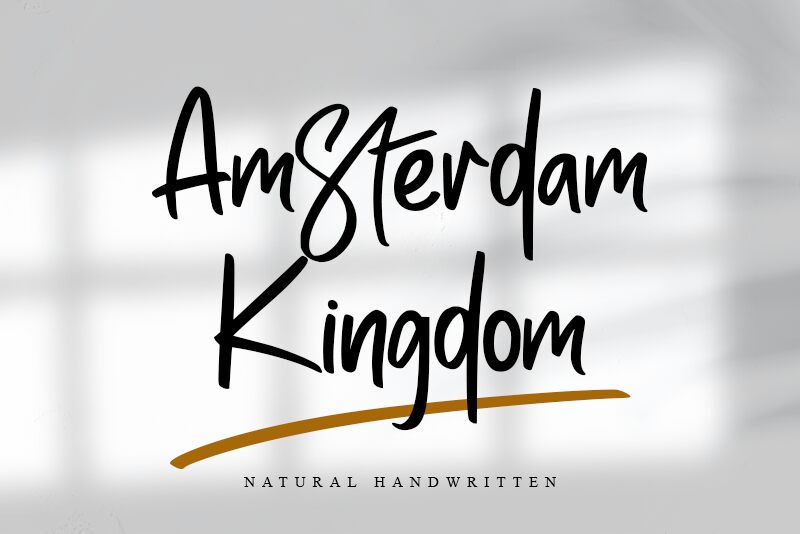
Amsterdam Kindom font by Letterara is a free handwritten font with an elegant yet casual style. The strokes are variable with smooth curves that make it energetic and dynamic. Letters are slightly slanted in some cases, emphasizing the relaxed and friendly appearance of this typeface.
The balanced letter structure makes it perfect for web pages, prints, magazines, advertisements, product packaging, videos and more. Use it to create beautiful journals as well as social media posts or branding visuals like logos.